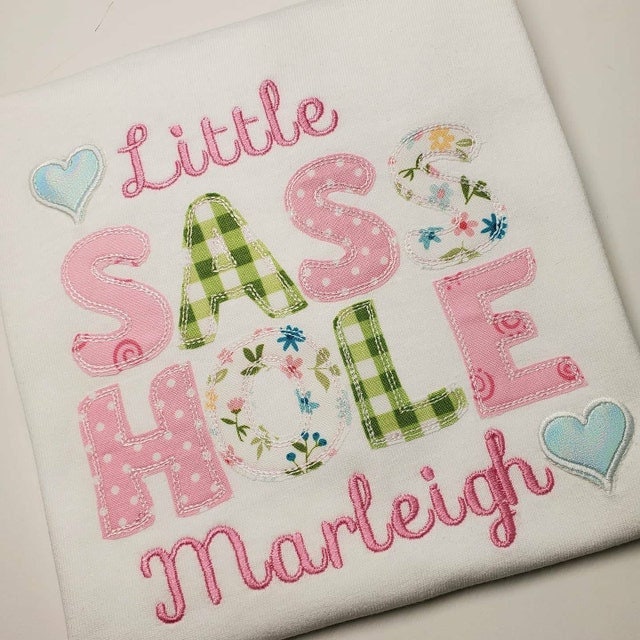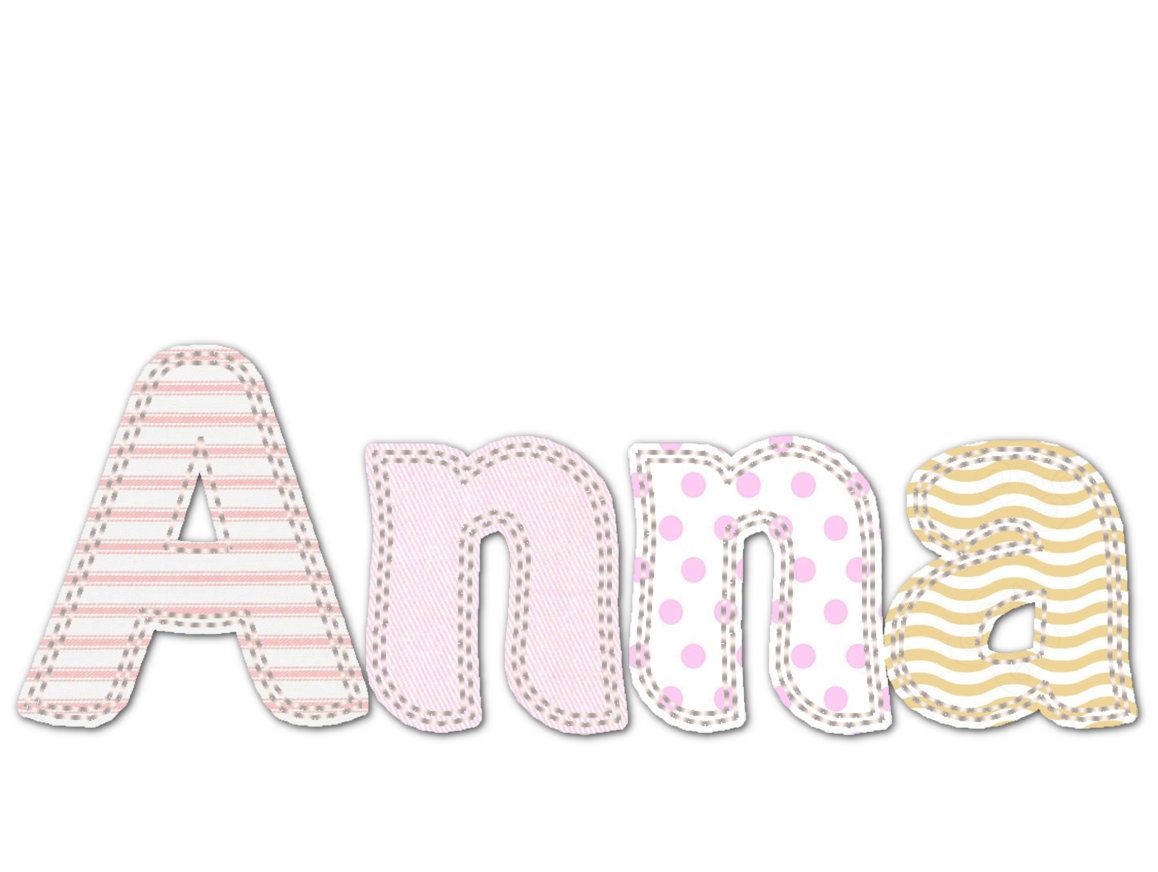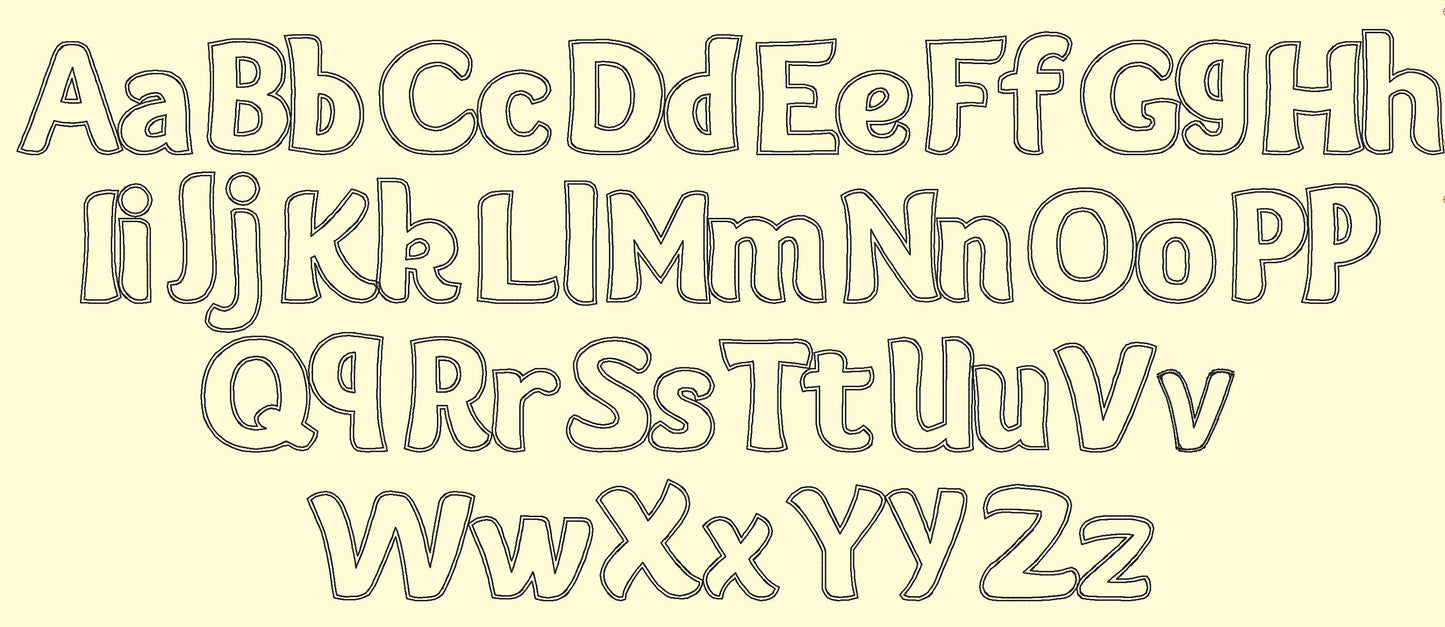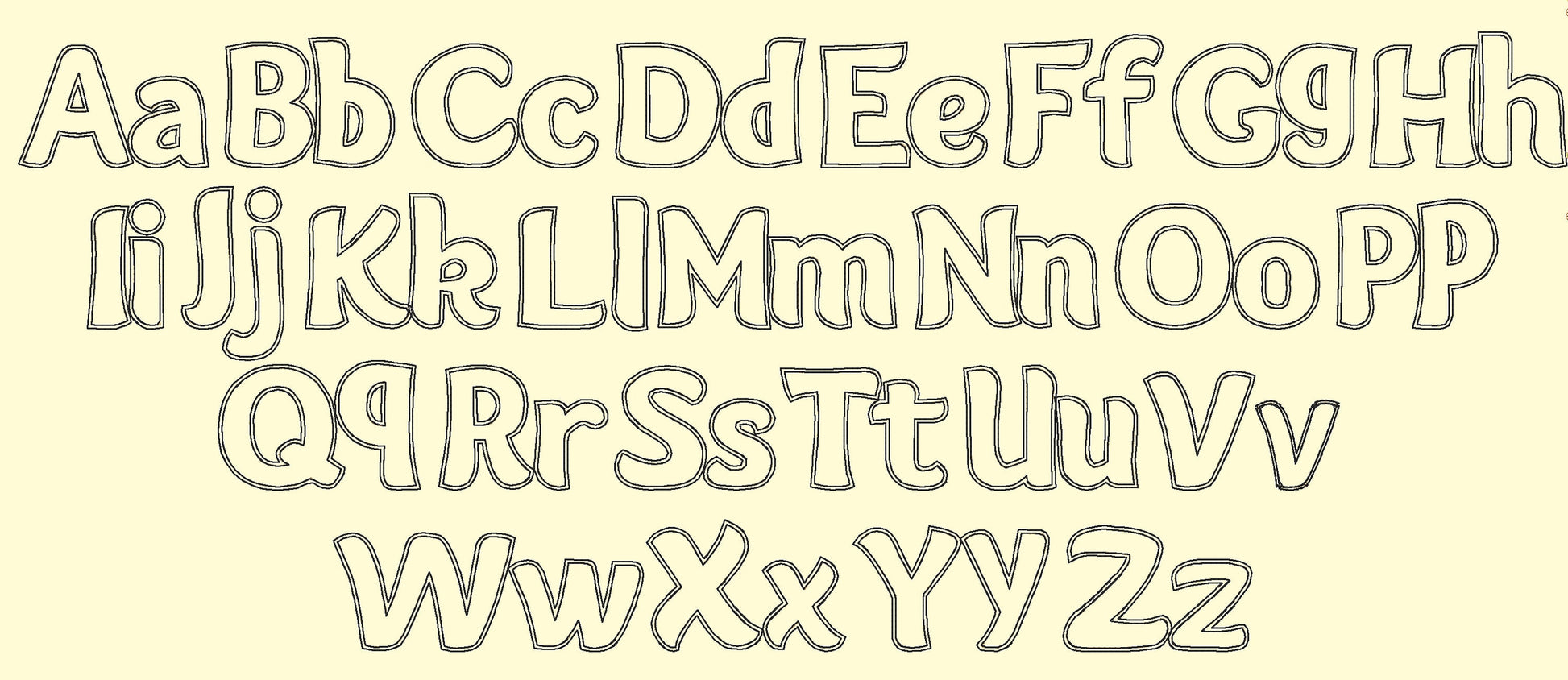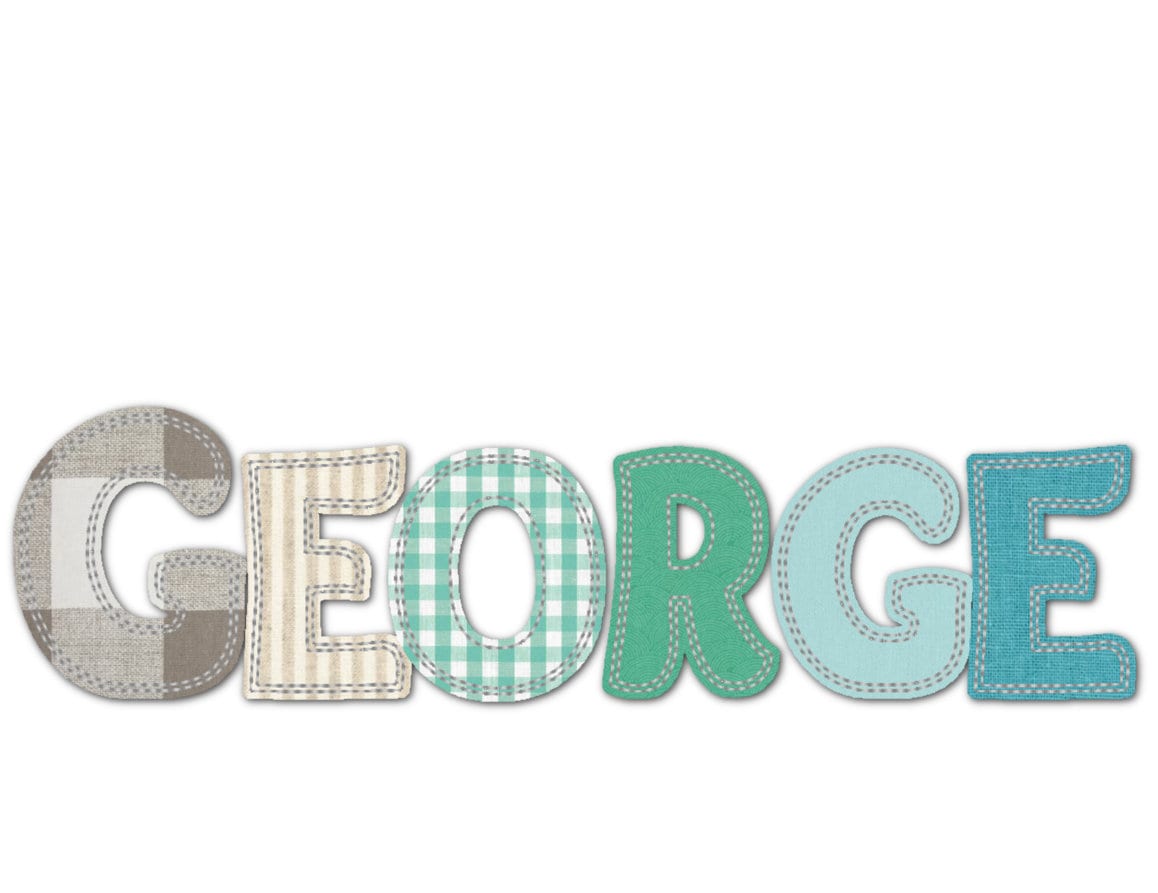
Cute designs available in lower case.
Exactly what i needed for a project
Can't wait to stitch out
wunderbare schöne Stickdatei, macht was her
Wurde als Namenszug auf der Zuckertüte verwendet (Bezug wird später ein Kissen) und hätte für mich nicht schöner werden können.
So perfect for my own Etsy shop (SunflowerTots). The font just worked so well!
This design stitched out nicely
great applique font sews perfect
I love how this stitched out perfectly.
This is a beautiful font!
This alphabet is equally great. No problems stitching out and looks really nice.
A great font for all, stitched out perfectly!
Editing review. Don’t buy if you need more then 2 letters and you only have a 4x4 hoop, only 2 letters fit in 4x4 hoop. It’s cute but can’t use it.
Great applique stitched out perfect
Beautiful embroidery font. The name comes out lovely.
Love the font Stitched beautifully! Thank you
Stitched out beautifully
great exactly what I wanted
Tolle Stickerei. Erwartungen voll erfüllt.
Love this design for appliqué!
Perfect for the shirt.